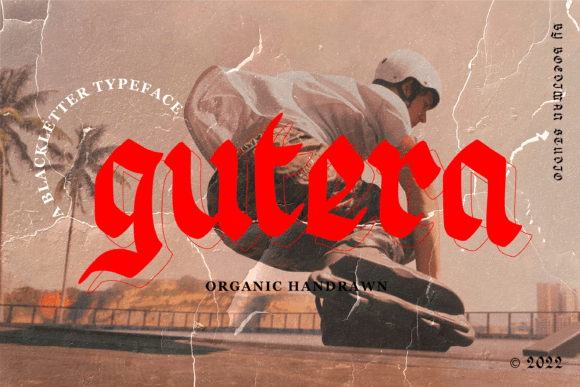
In a world saturated with uniformity, Gutera Font emerges as a beacon of distinction, a font family that captivates with its bold and elegant strokes. Inspired by the timeless allure of blackletter scripts, Gutera embodies a fusion of classicism and modernity, effortlessly adding an air of sophistication to your creative endeavors.
Welcome to the realm of Gutera, where letters dance with grace and poise, where every word carries the weight of history and the promise of innovation. This blackletter font family, meticulously crafted by MORO Design, transcends the boundaries of ordinary typography, inviting you to embark on a journey of visual storytelling.
With Gutera, your designs will acquire an aura of elegance and charm, reminiscent of ancient manuscripts and timeless works of art. Its distinct and timeless style ignites the imagination, empowering you to create designs that resonate with audiences on a profound level.
Immerse yourself in the world of Gutera and discover a font family that defies convention. Let your creativity soar as you harness the power of Gutera to craft logos that exude authority, posters that command attention, and social media graphics that captivate and engage.
Gutera is the ultimate font for the modern creative, a tool that unlocks the gateway to a world of design possibilities. Its versatility extends from traditional print media to the dynamic realm of digital design, effortlessly adapting to websites, apps, and social media platforms.
Experience the transformative power of Gutera, and witness how it elevates your designs to new heights of sophistication and elegance. Embrace the allure of this timeless font family and unlock the limitless potential of your creativity.